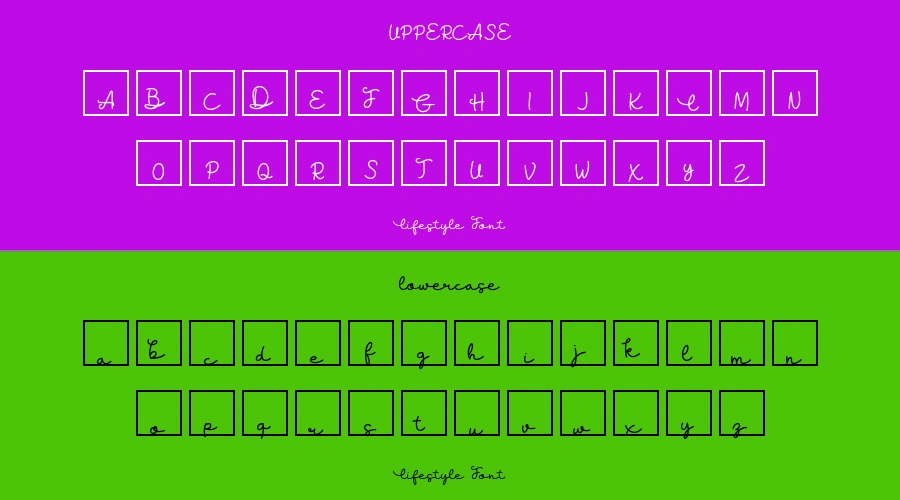
About Lifestyle Font
Lifestyle Font represents a sophisticated approach to type design, balancing flourished entries with clarity. Perfect for product naming, this font family showcases impressive sophistication and design innovation throughout its character set. Designers appreciate its versatility and reliability.
Designers will appreciate nuanced touches including ligatures and case-sensitive forms, adding sophistication to any project. These features become apparent in campaign headers, where personality transfer matters most. The careful treatment of joint construction and market position ensures optimal performance.